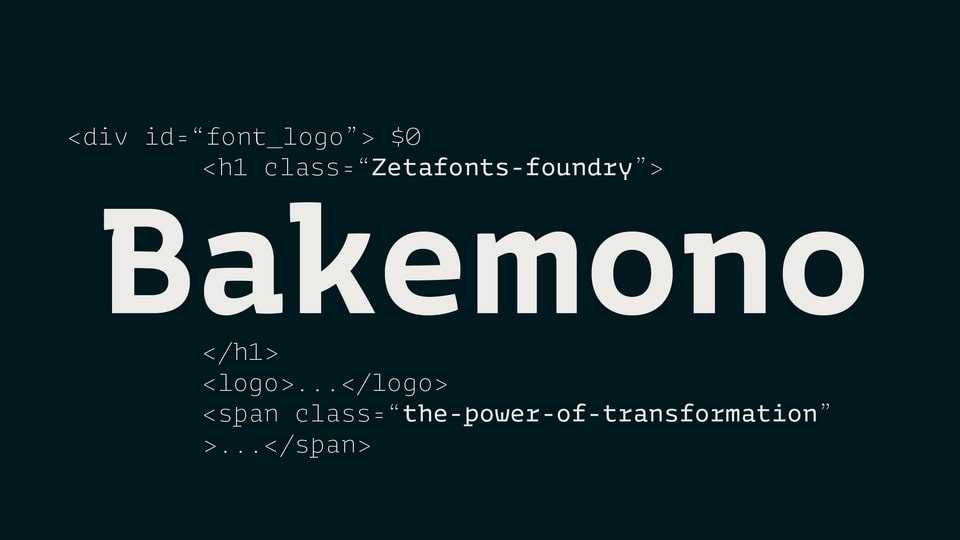
Download Bakemono font, a monospaced typeface created as a way to explore the design space around the duality of fixed/proportional width. Bakemono can both excel at text size in its regular widths optimized for legibility as well as owning the page at display size with its uncommon design details.